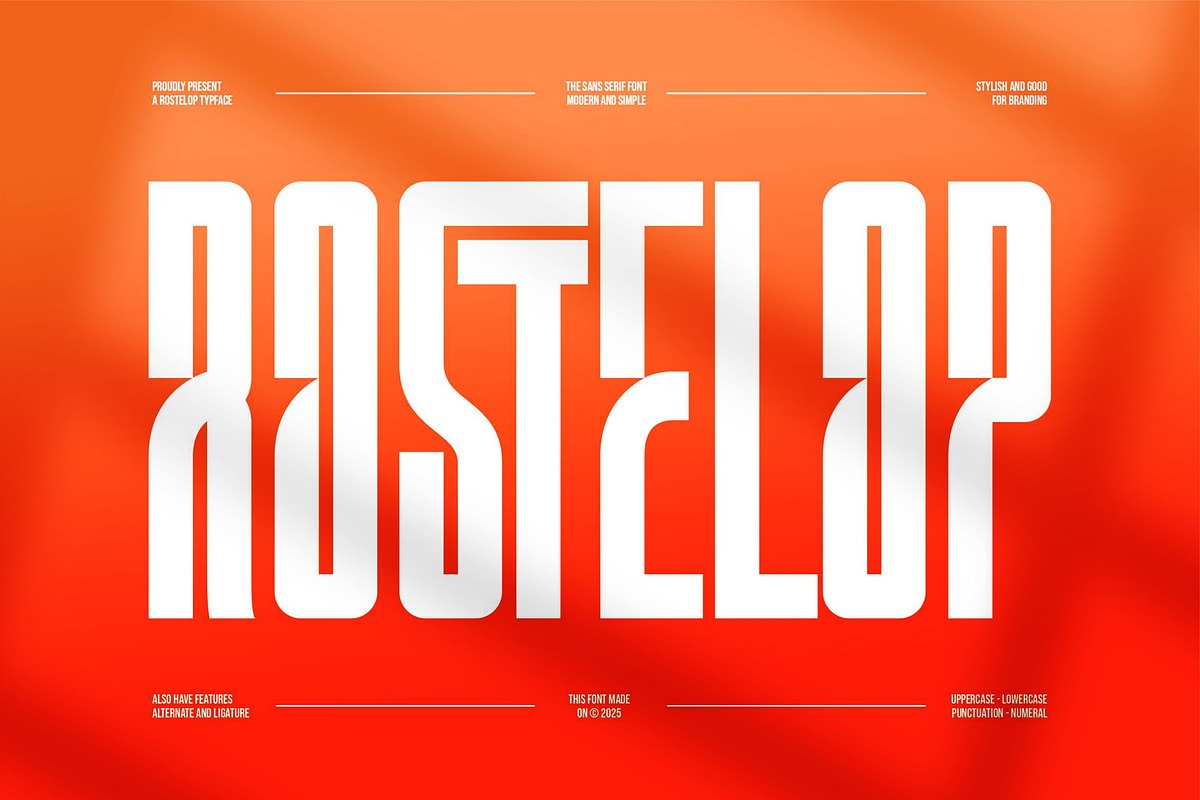
Rostelop Font
Rostelop Font is a flexible and reliable font created to fit multiple design needs, from branding and packaging to social media and editorial layouts. Rostelop is tall sans serif Font modern, trendy and stylish. It has a unique character. It is perfect to be combined with invitation card designs, company logos, movie titles, movie names, business cards, book titles, brand names and various other designs.